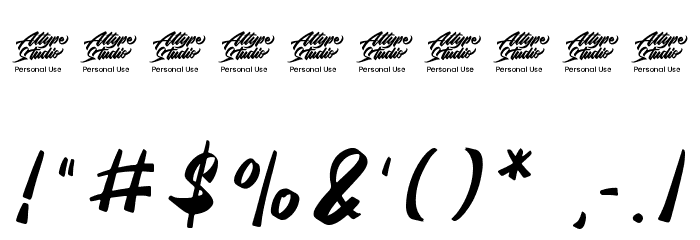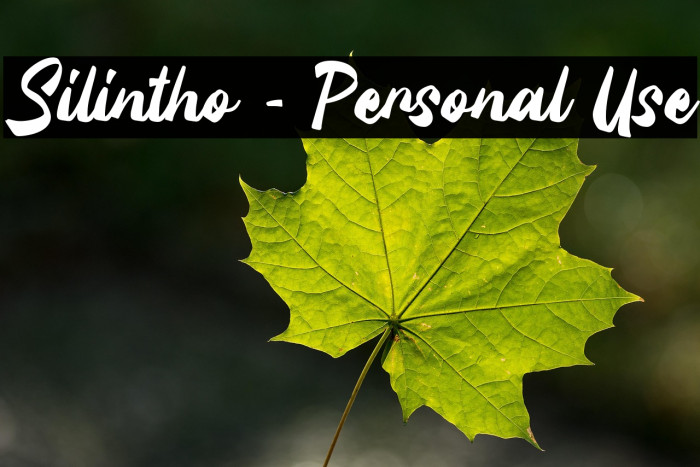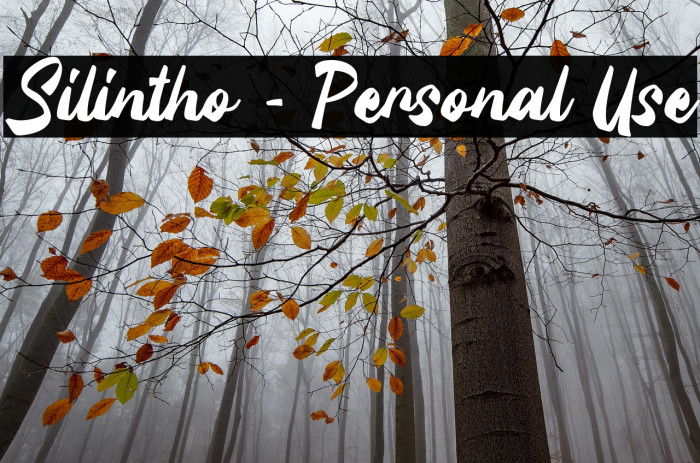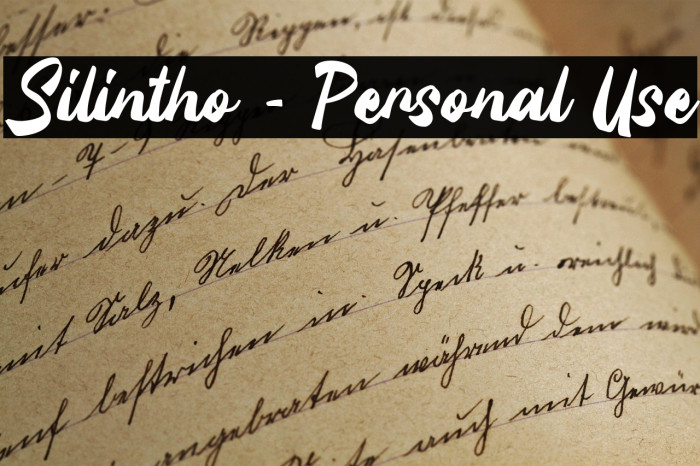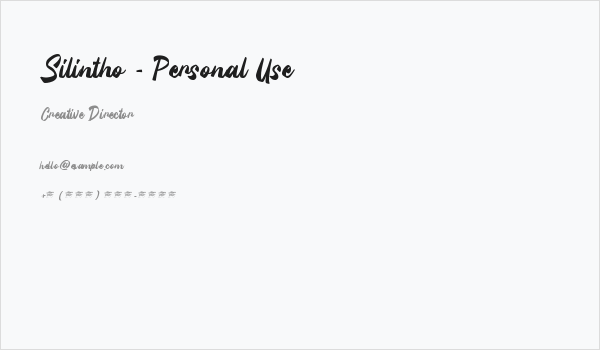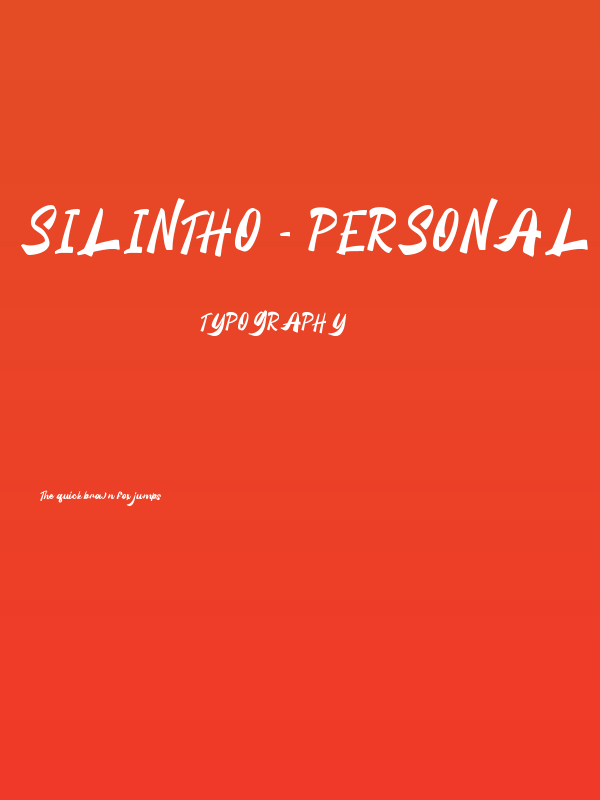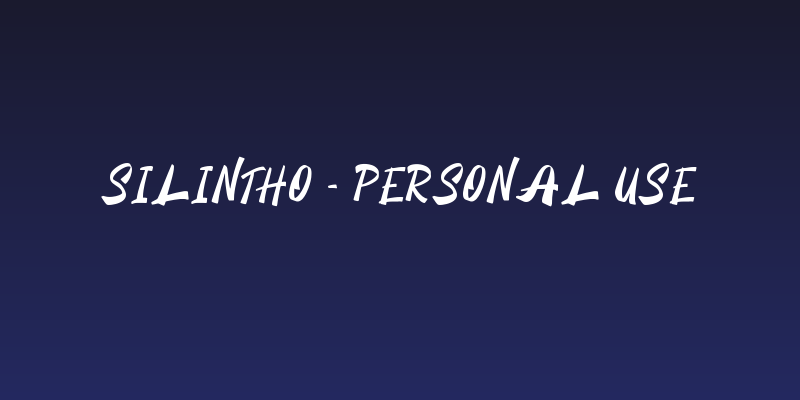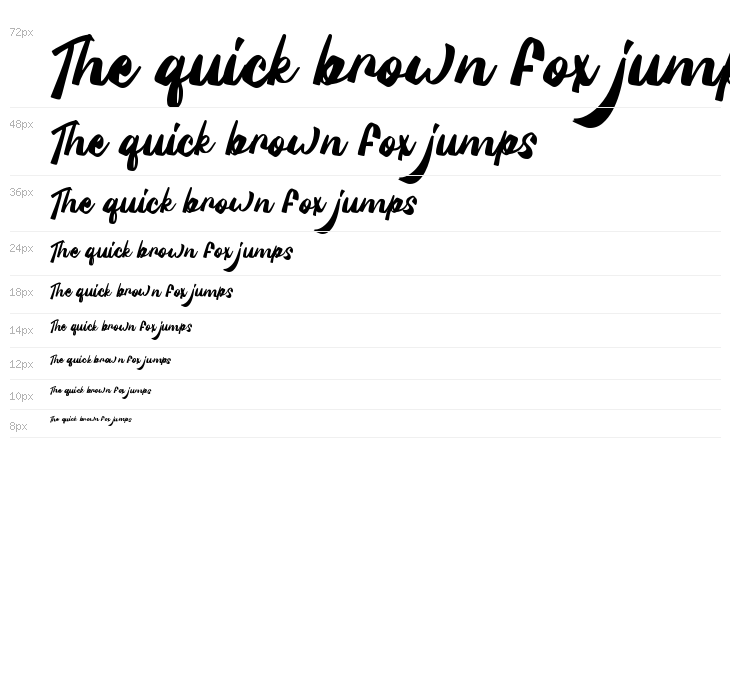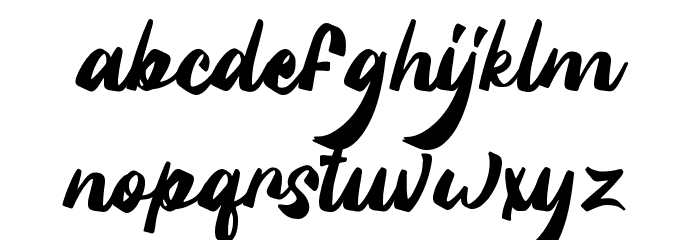
Silintho - Personal Use Font
Silintho - Personal Use Description
This font features a dynamic and expressive style, characterized by its bold and flowing script. The uppercase letters exhibit a strong presence with sweeping curves and varying stroke widths, creating a sense of movement and elegance. The lowercase letters maintain a cohesive flow, complementing the uppercase with their smooth transitions and rounded forms. The numerals and special characters are crafted with the same attention to detail, ensuring consistency throughout the typeface. This font's energetic and artistic flair makes it suitable for creative and eye-catching designs.
| Proposed Projects | Ideal for branding, logos, invitations, and artistic projects requiring a personal touch. |